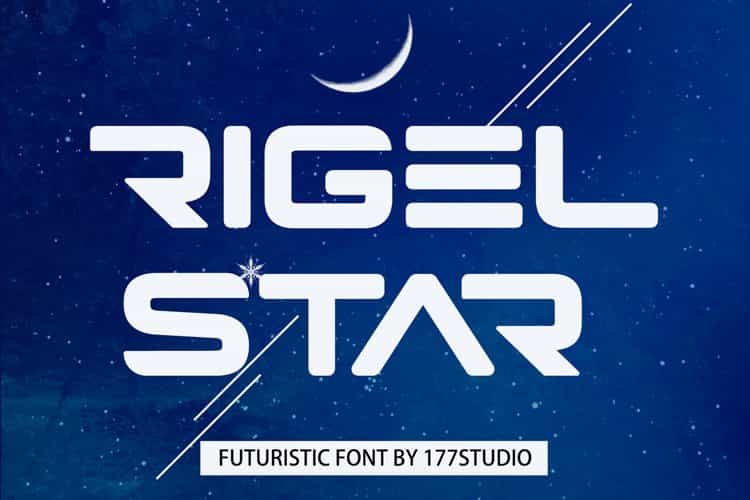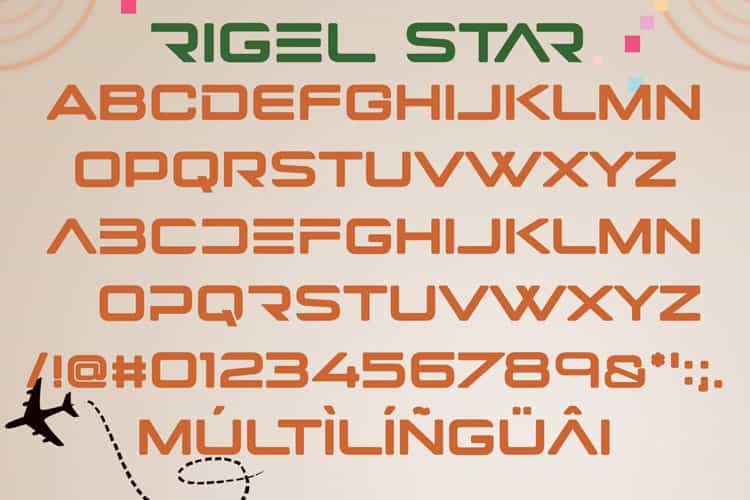
Rigel Star Display Font
Rigel Star is an futuristic display font featuring alternative letters. Rigel Star is font which can help create futuristic high-tech and a futuristic design. It’s attractive as a the header as well as text. Make use of it in your projects within areas such as robots & androids, hi-tech, futuristic Virtual Reality, the space, and numerous others.